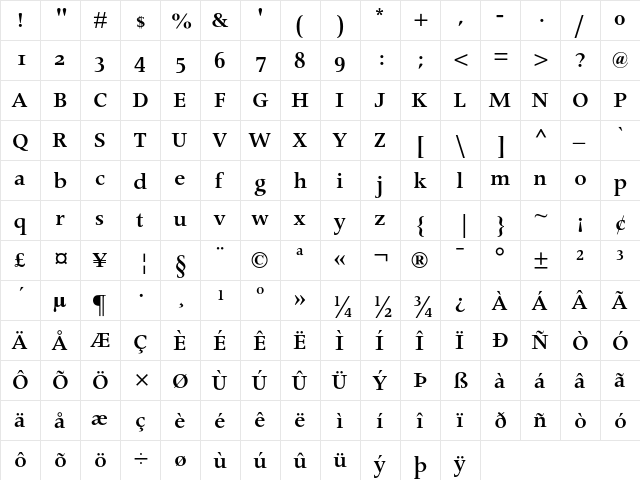
Apollo MT Semi Bold Oldstyle Figures
Design Context for Apollo MT Typeface
Apollo MT brings classic typographic sensibility to the table — its serifs and measured letterforms reflect centuries of print heritage. The heavy weight commands attention and anchors typographic hierarchies.
Pro Tip: Use Apollo MT for editorial body copy and considered headline work. Pair with a neutral sans for UI elements or captions to create a classic hierarchy.